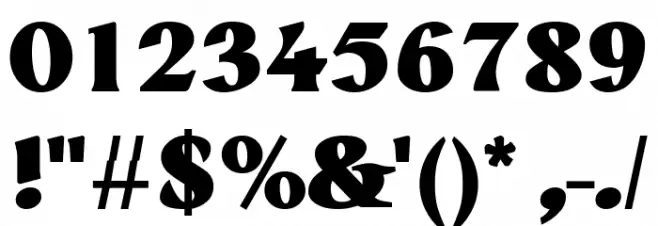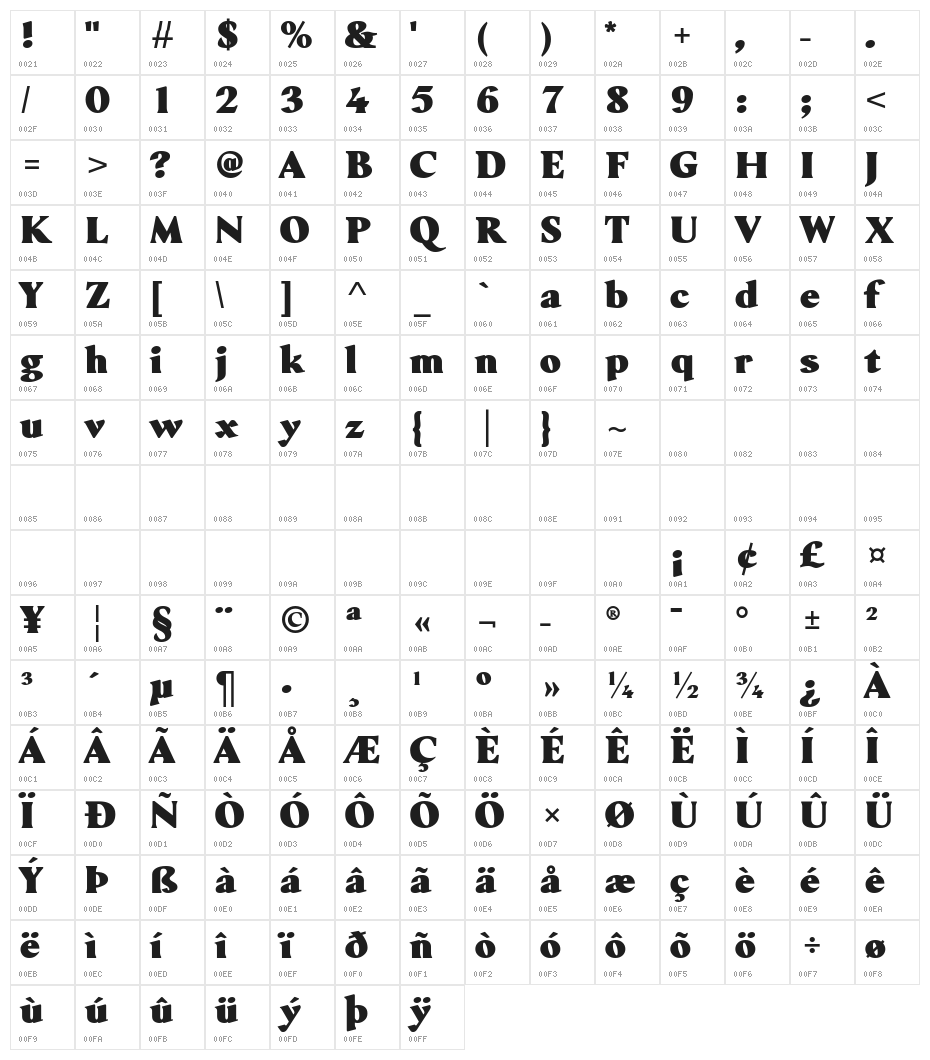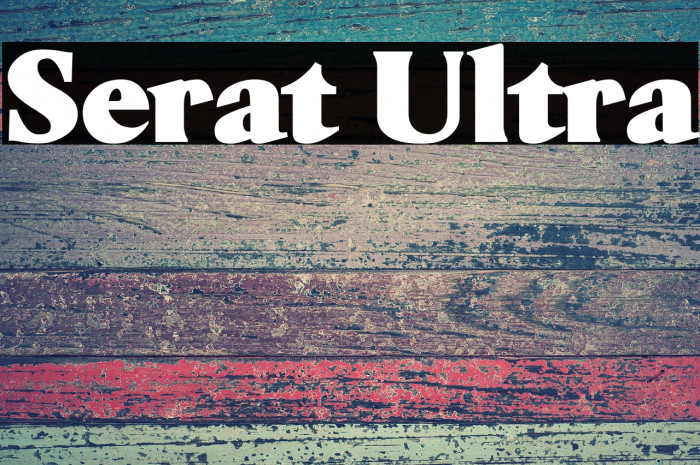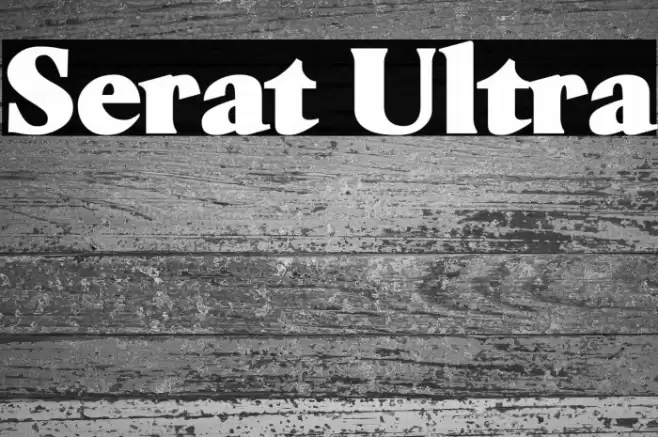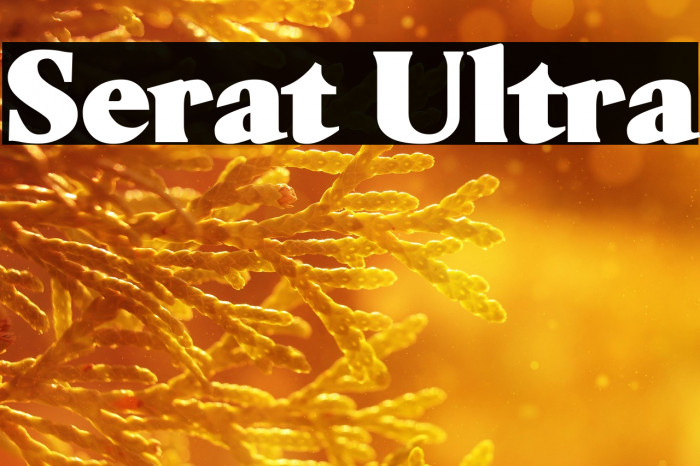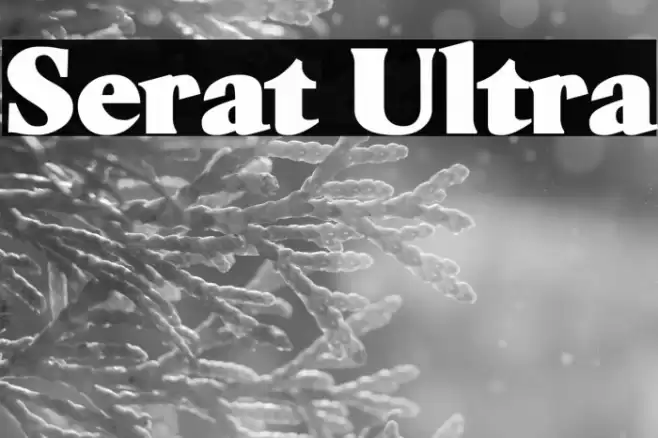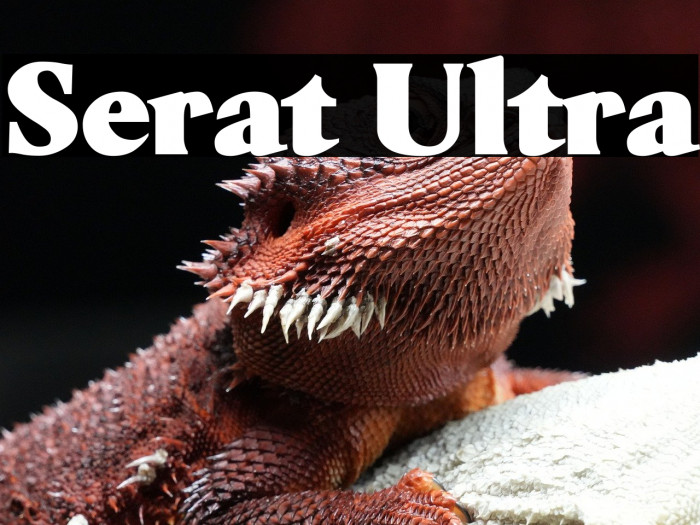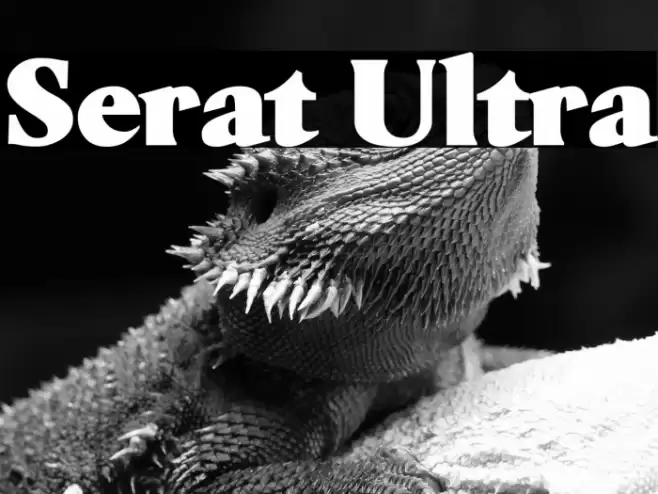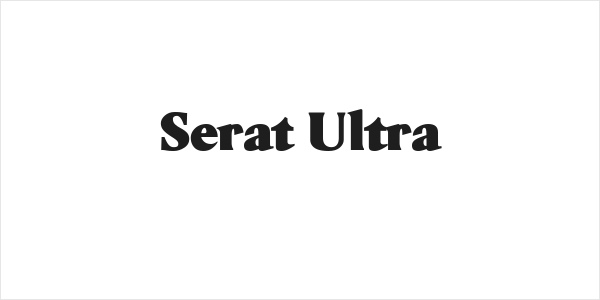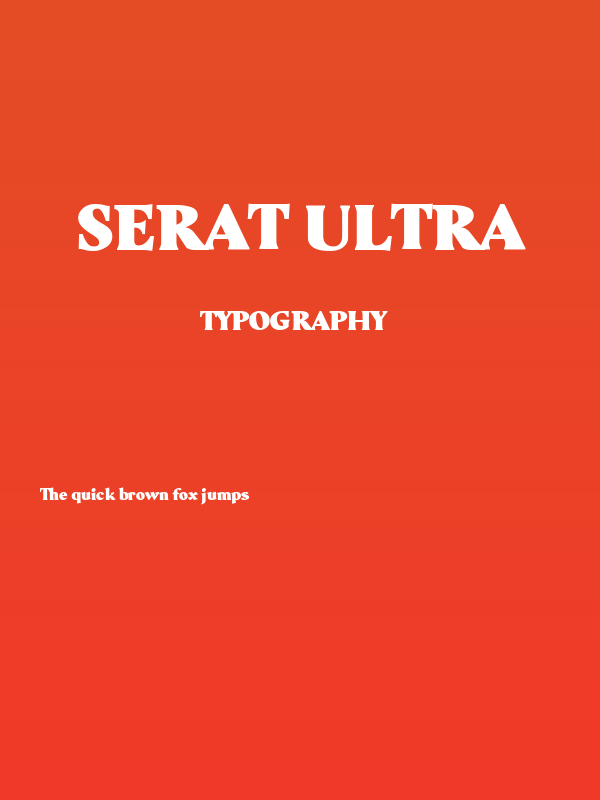
Serat Ultra Font
Serat Ultra Description
This font features a bold and dramatic style with high contrast between thick and thin strokes. The serifs are pronounced and angular, giving it a strong, authoritative presence. The uppercase letters are particularly striking, with a sense of grandeur and formality. The lowercase letters maintain the boldness, with a slightly condensed appearance that adds to the overall impact. Numbers and special characters are equally bold, ensuring consistency across all text elements. This font is ideal for making a statement, with its powerful and commanding aesthetic.